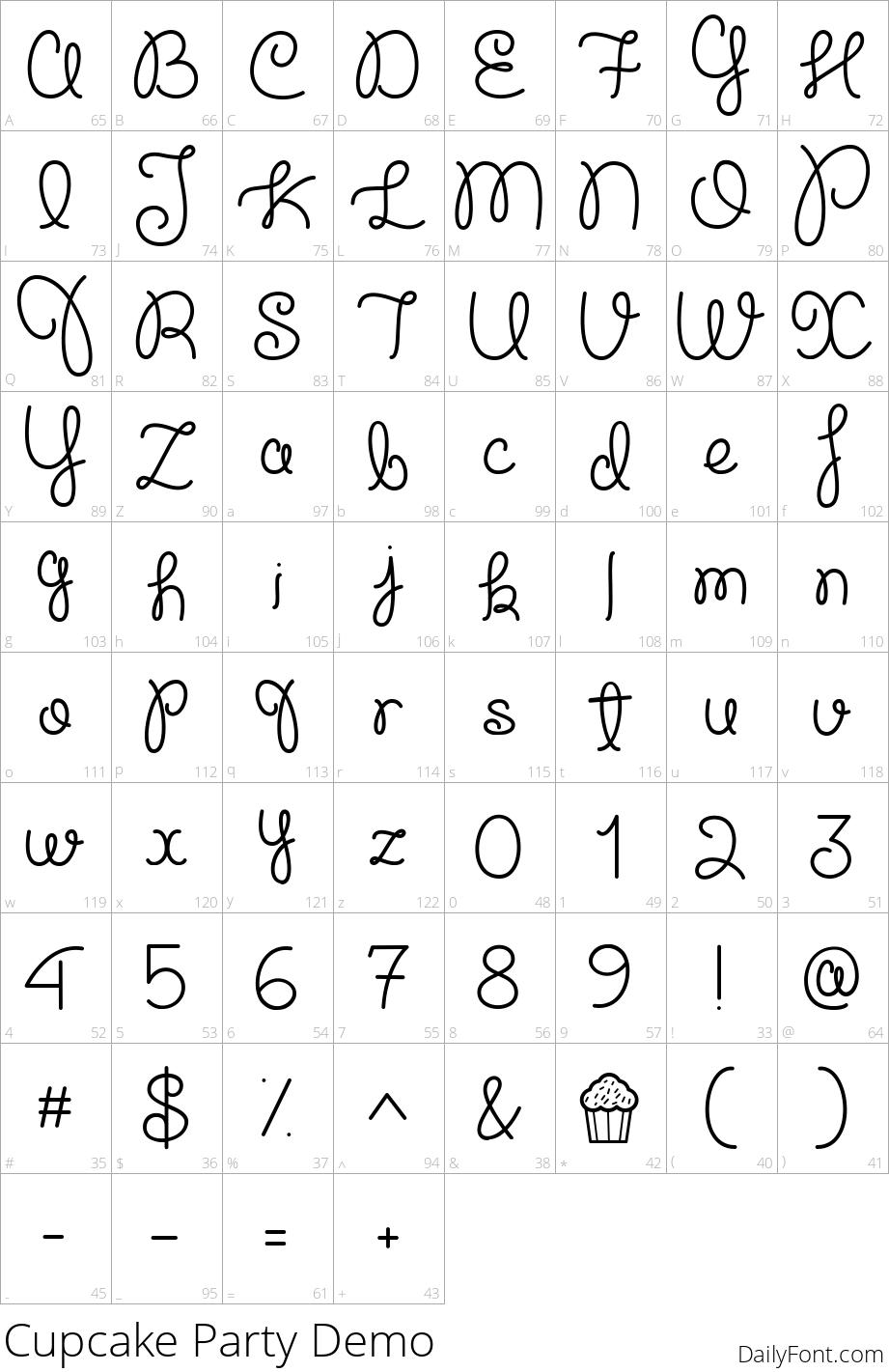
Cupcake Party
Are you looking for a playful, whimsical font to add some sparkle to your design? Look no further than a curly, cursive font like Cupcake Party. Perfect for projects that require a touch of personality and charm, this font is ideal for headings, logos, invitations, t-shirt designs, greeting cards, posters, labels, book covers, brochures, and more.
Characterized by its flowing, handwritten style with plenty of ornate flourishes, Cupcake Party is sure to bring a sense of joy and celebration to your design. Its curly queues and rounded terminals give it a friendly, approachable feel that's perfect for projects targeting a younger audience or aiming to evoke a sense of playfulness.
Whether you're designing a party invitation, creating a t-shirt design for a fun event, or crafting a greeting card for a special occasion, Cupcake Party is the perfect font to help you make your message stand out. Its versatility and charm make it an excellent choice for a wide range of projects, from children's products to fashion and lifestyle designs.
If you're looking for a font that will add some whimsy and personality to your design, look no further than Cupcake Party. With its playful, curly style and endless possibilities for creative expression, this font is sure to be a hit with designers and audiences alike.